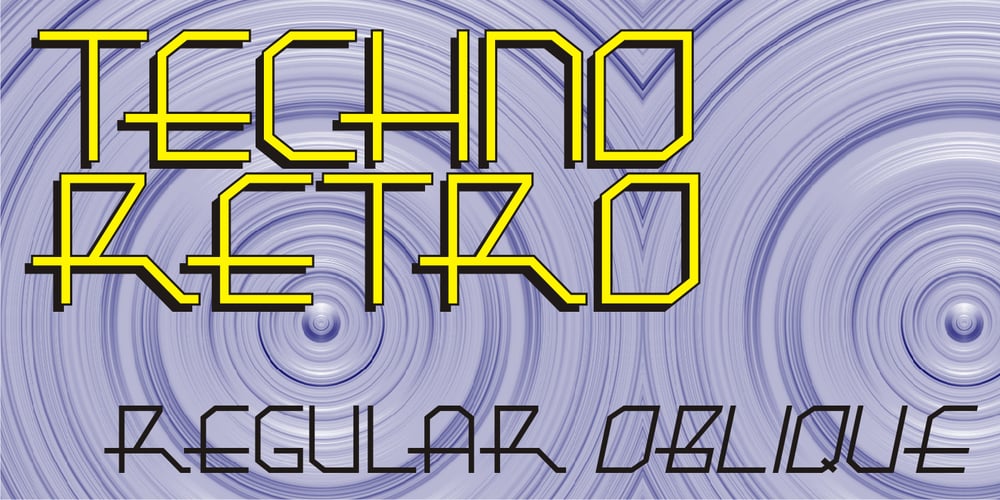
Techno Retro JNL Font Family was designed by Jeff Levine and published by Jeff Levine. Techno Retro JNL contains 2 styles and family package options. Techno Retro JNL looks like a design straight out of the 1980s, but it actually appeared as hand lettering on a sheet music cover for the circa-1940s edition of the song “To You Sweetheart, Aloha”, proving the old saying that “everything old is new again”.